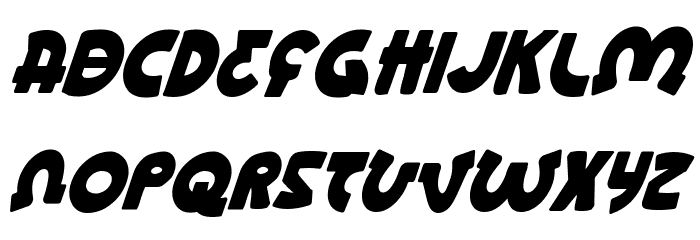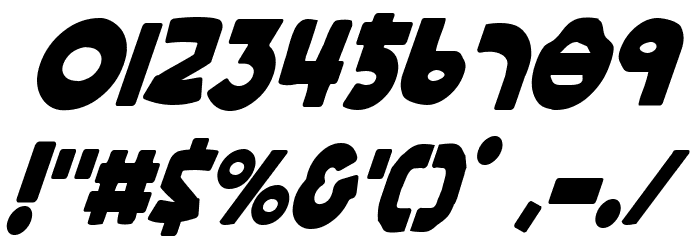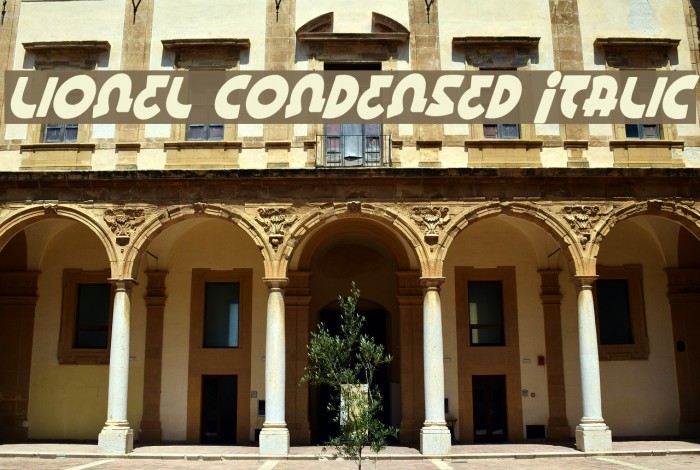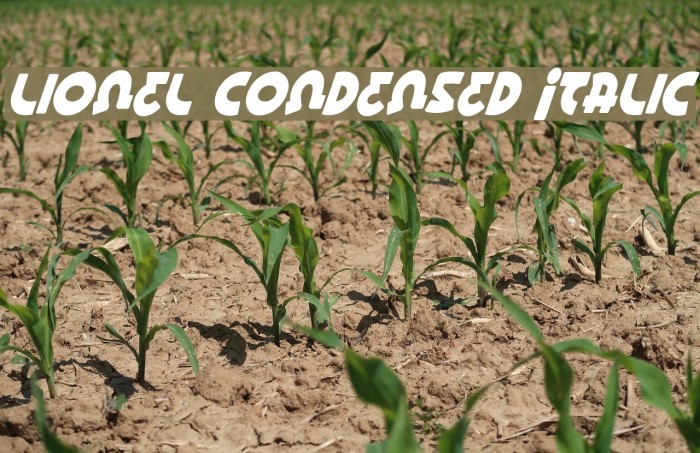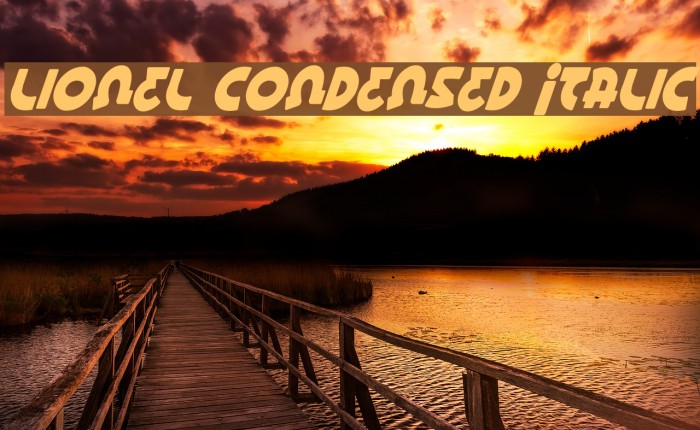
Lionel Condensed Italic Font
This font features a bold and dynamic style with a condensed and italicized form. The characters are uniquely shaped with a strong presence, making them stand out prominently. The strokes are thick and consistent, providing a sense of strength and stability. The italic slant adds a sense of motion and energy, while the condensed width ensures that the text remains compact and efficient in space usage. This font is particularly eye-catching and suitable for designs that require a bold statement.
A bold, condensed, and italicized font with a dynamic and strong presence.
- Proposed Projects: Ideal for posters, headlines, branding, and advertising where a bold and impactful statement is needed.
- Character Spacing: Tight